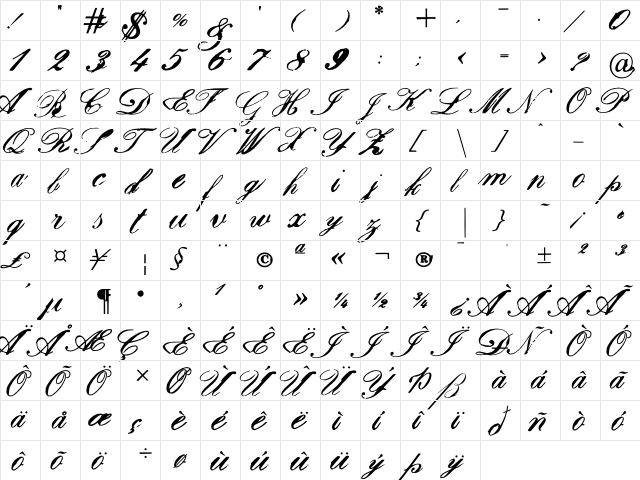
ChatoBand Smooth Bold
| Foundry | German Olaya |
| Designer | German Olaya |
Design Context for ChatoBand Smooth Typeface
ChatoBand Smooth is a composed and adaptable typeface that performs quietly and consistently across a wide range of design contexts. Its bold stroke weight gives it real presence on the page.